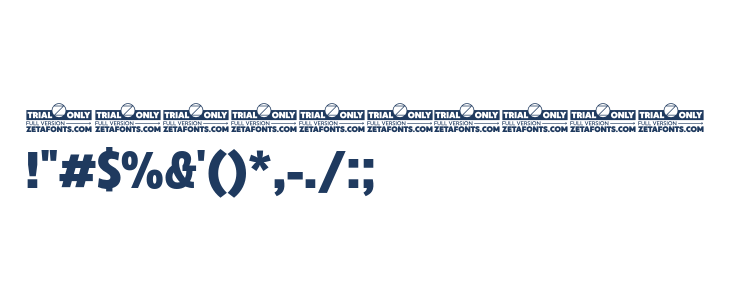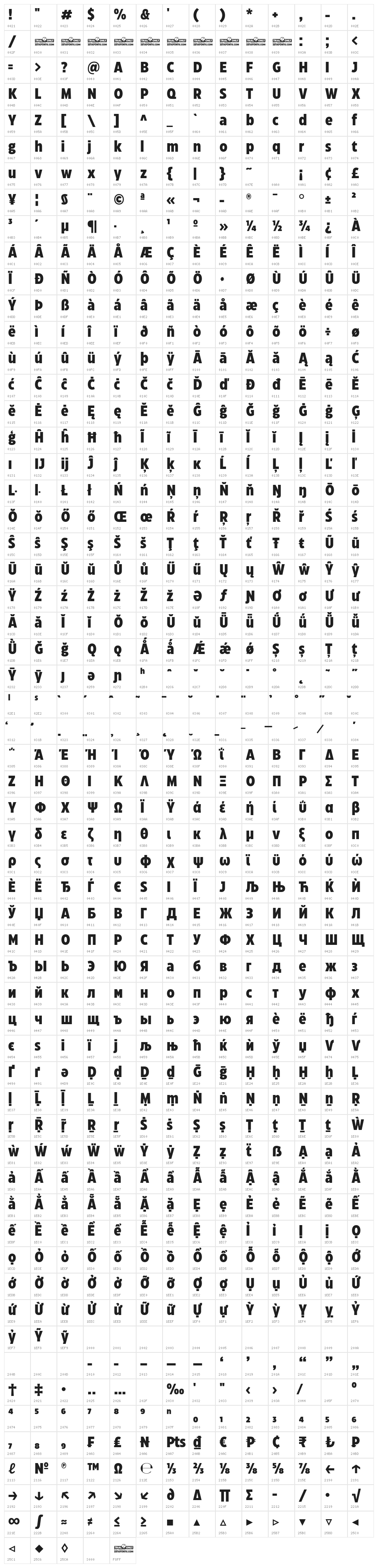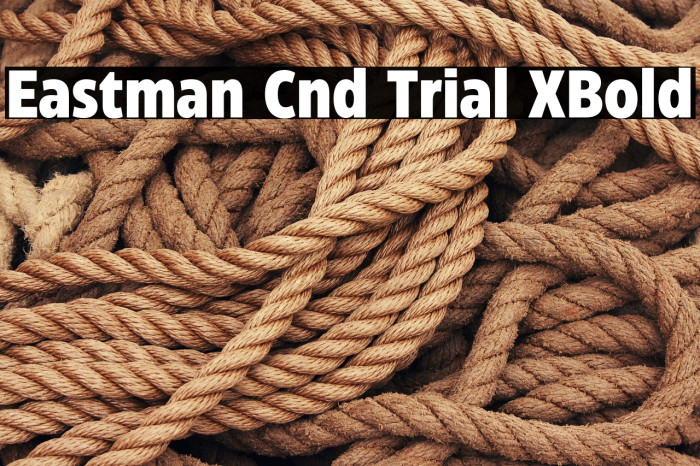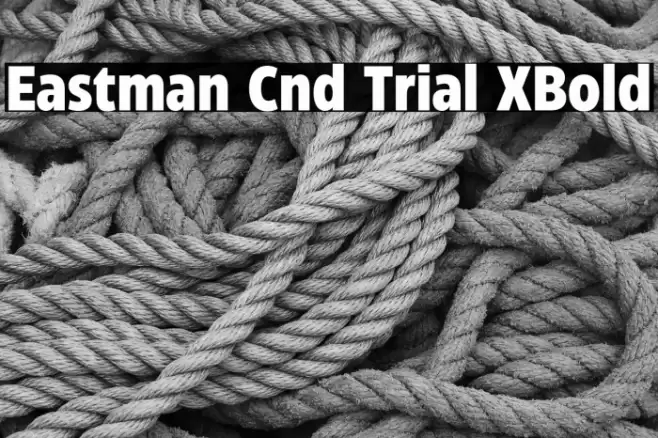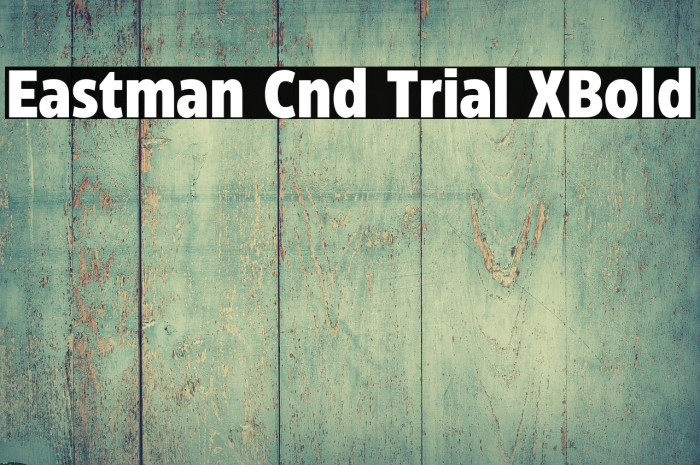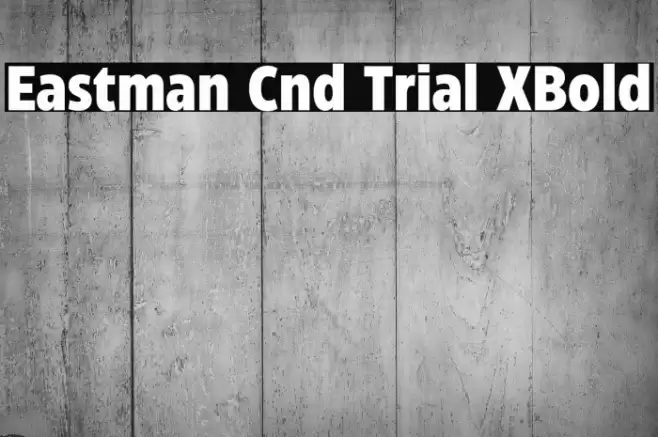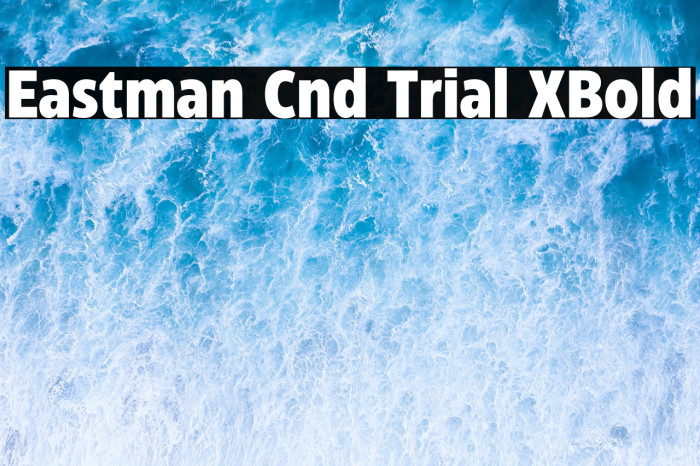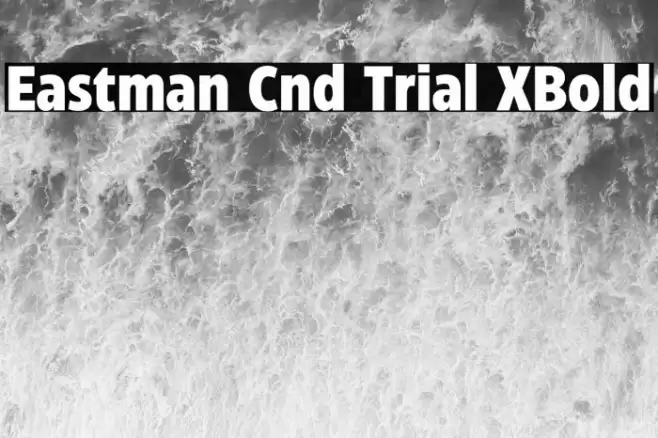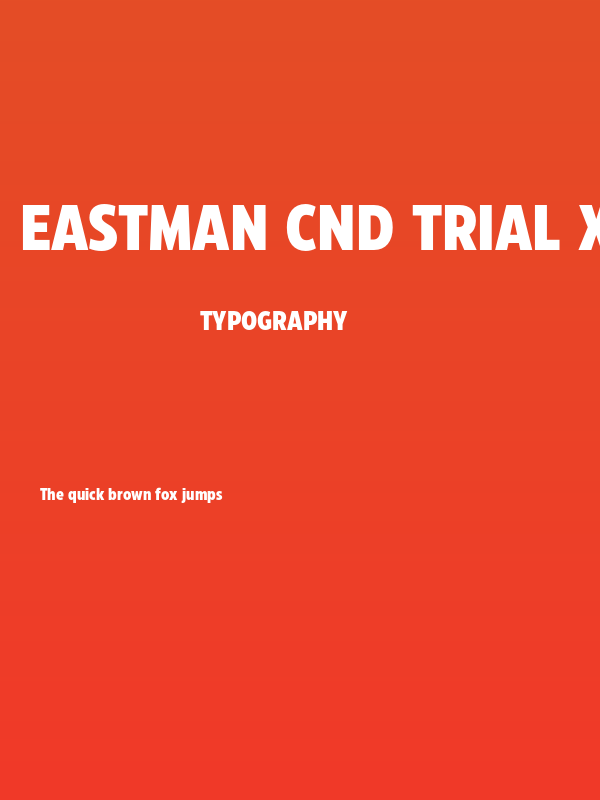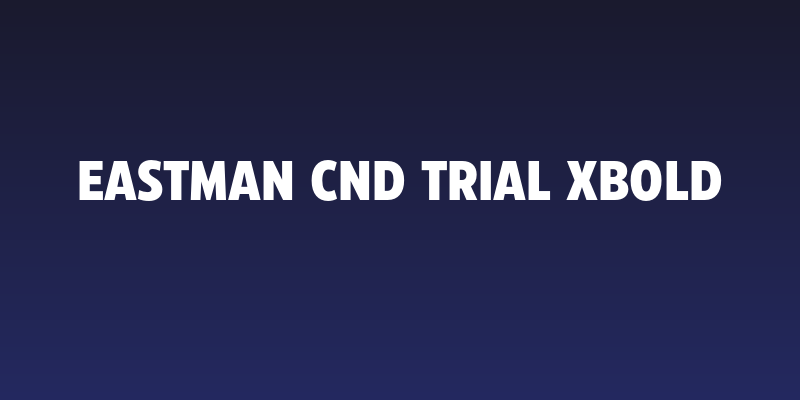
Eastman Cnd Trial XBold Font
Eastman Cnd Trial XBold Description
This font exhibits a bold and impactful style, characterized by thick, uniform strokes that convey strength and modernity. The uppercase and lowercase letters are designed with a condensed width, allowing for efficient use of space while maintaining readability. The font features a high contrast between the thick strokes and the minimal spacing between characters, which enhances its bold appearance. The overall style is modern and assertive, making it suitable for projects that require a strong visual impact. The special characters are crafted with the same boldness, ensuring consistency across all glyphs.
| Proposed Projects | Ideal for headlines, posters, branding, and advertising where a strong, modern presence is needed. |